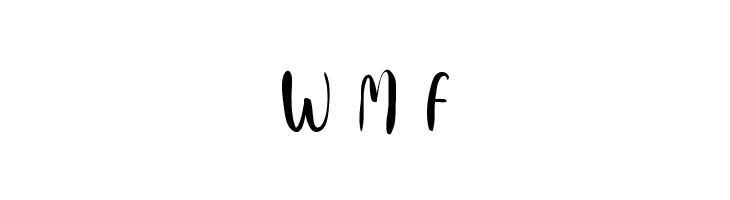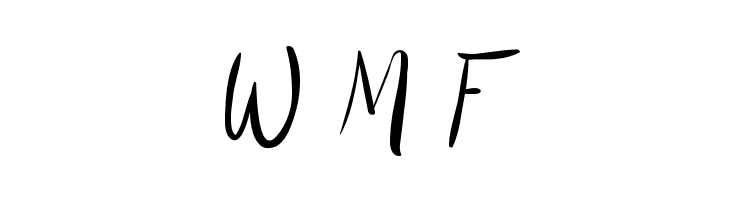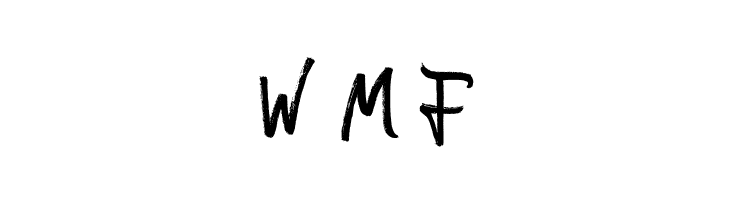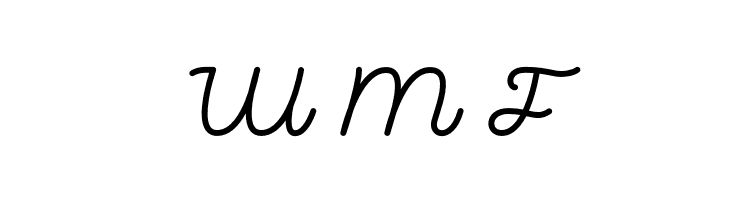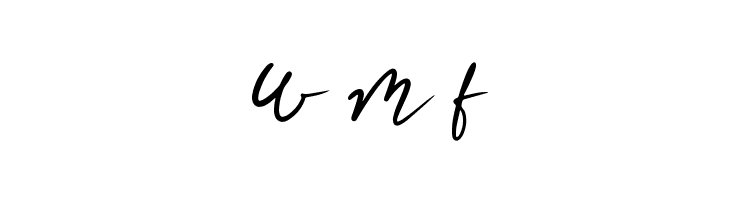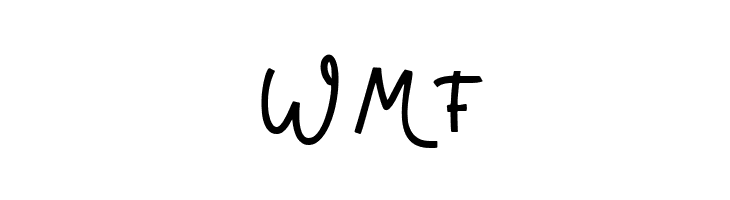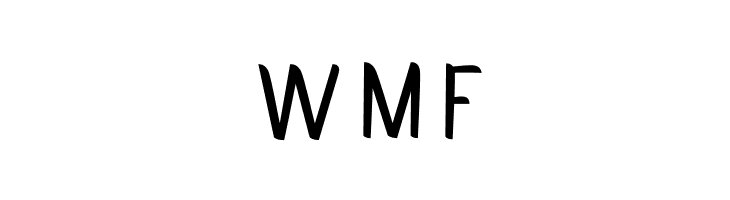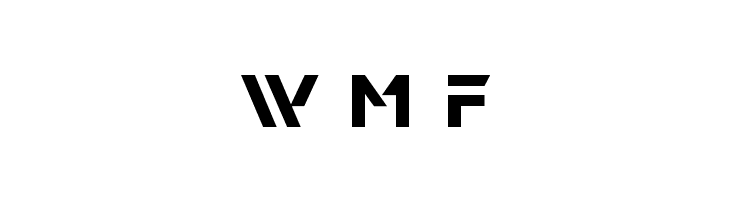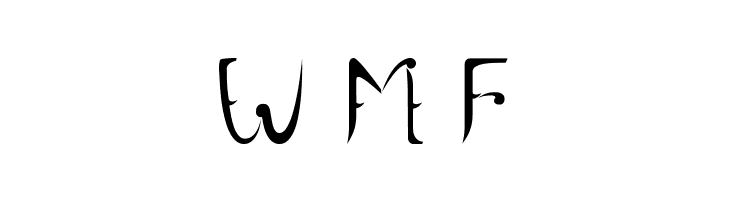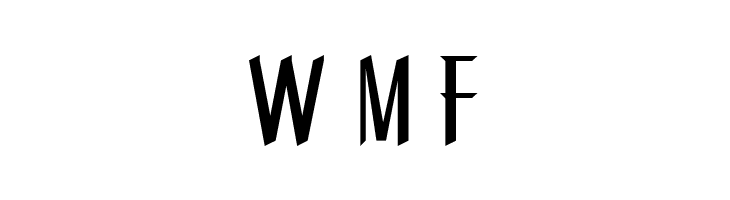
A bold, brush-style font with a dynamic, hand-painted look.
A playful, casual handwritten font with organic, fluid strokes.
A playful, casual handwritten font with an organic flow.
A bold, expressive brush-style font with an artistic and informal feel.
A playful, futuristic font with bold, rounded shapes and whimsical accents.
A rugged, edgy font with jagged edges and a hand-drawn appearance.
A bold, modern font with geometric influences and high contrast.
A bold, geometric font with sharp angles and a futuristic look.
A decorative serif font with sharp serifs and elegant curves, blending traditional and modern styles.
Energetic handwritten script with casual, expressive strokes.
A bold, angular font with a retro gaming aesthetic.
A bold, angular font with a military-inspired, geometric design.
A modern, geometric font with bold, angular lines and a tech-inspired style.
A modern, cursive font with a handwritten, elegant style.
A playful, handwritten-style font with bold, dynamic characters.
A playful, star-adorned font with a whimsical and energetic style.
A bold, rounded font with a playful and modern style.
A dynamic, cursive font with fluid strokes and a modern, artistic flair.
A bold, playful font with hand-drawn, flowing letterforms and a modern style.
A clean, rounded sans-serif font with a modern and approachable style.
An elegant serif font with modern and classic elements, featuring distinct curves and subtle serifs.
A bold, cursive script font with a lively and dynamic style.
A decorative, playful font with organic, fluid shapes and a whimsical, monstrous appearance.
A playful, hand-drawn font with a brush stroke style.
A smooth, flowing script font with elegant, connected letters.
A geometric, architectural font with a modern, technical style.
A lively, brushstroke-style font with a textured, artistic appearance.